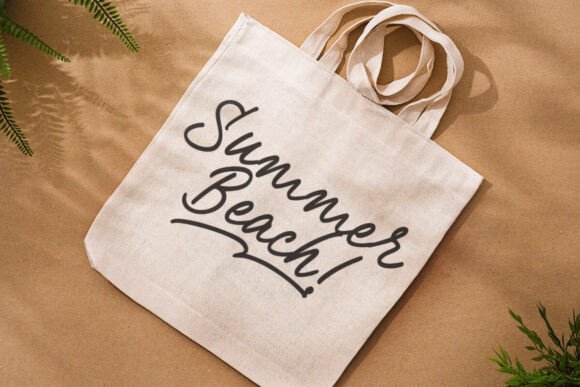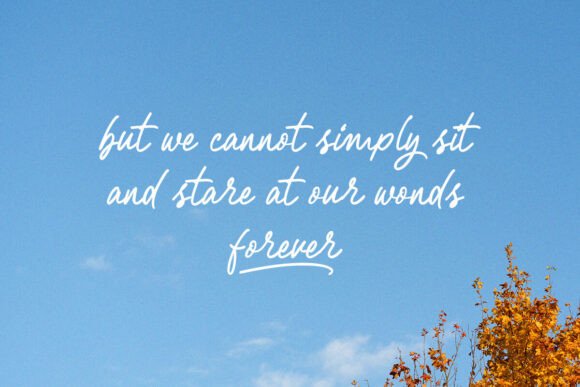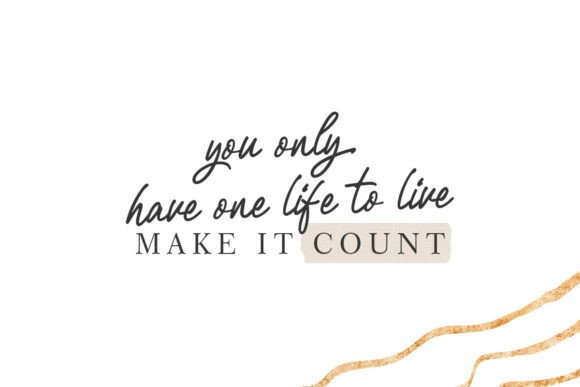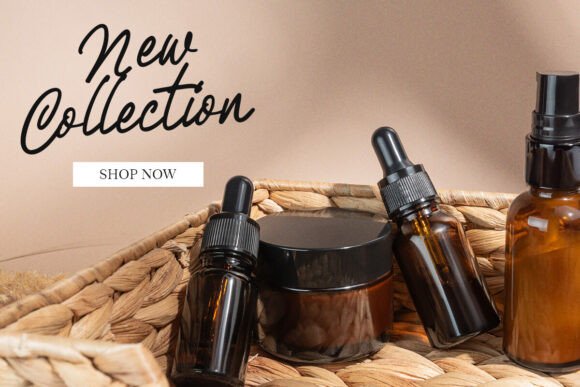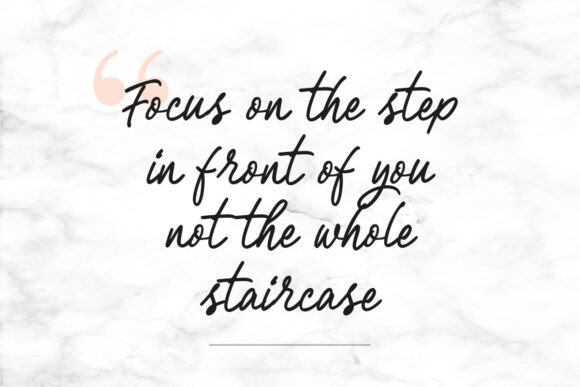
The Perfect Blend of Elegance and Whimsy: Introducing the Cashmere Script Font
Have you ever been browsing through a high-end fashion magazine, and the words on the page just seem to flow effortlessly, like a gentle summer breeze on a lazy afternoon? That’s the magic of a well-designed font, and the Cashmere Script Font is no exception. This beautiful handwriting font is designed to evoke a sense of effortless femininity and chic sophistication, making it the perfect addition to any design project.
Whether you’re creating a logo for a luxury brand, designing a wedding invitation, or crafting a novel, the Cashmere Script Font is a valuable tool in your design arsenal. Its casual monoline style makes it versatile and easy to use, allowing you to add a touch of elegance to even the most mundane projects.
Cashmere Script Font Key Features
- Unique Characteristics: Cashmere Script Font features a beautiful, elegant script style with connecting letters and subtle flair, perfect for adding a touch of sophistication to designs.
- Style Variations: The font includes multiple style variations, including Regular, Italic, Bold, and Bold Italic, allowing designers to experiment with different looks and feels.
Cashmere Script Font Review
Overall, I’d say the Cashmere Script Font is a solid choice for designers looking for a elegant, handwritten feel. ✨ The font’s smooth, flowing lines and subtle flair at the ends of letters make it perfect for adding a touch of sophistication to your designs.
- ✨ Elegant, handwritten feel that’s perfect for adding a touch of sophistication
- ✨ Smooth, flowing lines that make it easy to read
- ✨ Versatile and works well in a variety of contexts, from logos to body text
- ⚠️ Limited character set, which may make it difficult to use for extended blocks of text
- ⚠️ Some letters may be difficult to read at small font sizes
- ⚠️ Not as versatile as some other script fonts on the market
In terms of overall impression, I’d say the Cashmere Script Font is a great choice for designers who want to add a touch of elegance to their designs. While it may have some limitations, the font’s unique feel and versatility make it a solid addition to any design toolkit.
The Cashmere Script Font is perfect for:
- Special occasion cards and gift tags
Remember to pair the Cashmere Script Font with a clean and simple background to make it stand out.
Q: Can I customize the Cashmere Script Font to suit my specific design needs?
Yes, the Cashmere Script Font is highly customizable. You can adjust the font size, color, and style to suit your design project. Additionally, the font’s OpenType features allow for advanced typographic control, enabling you to create complex, customized designs with ease.